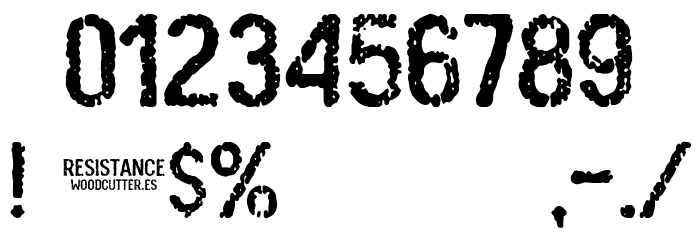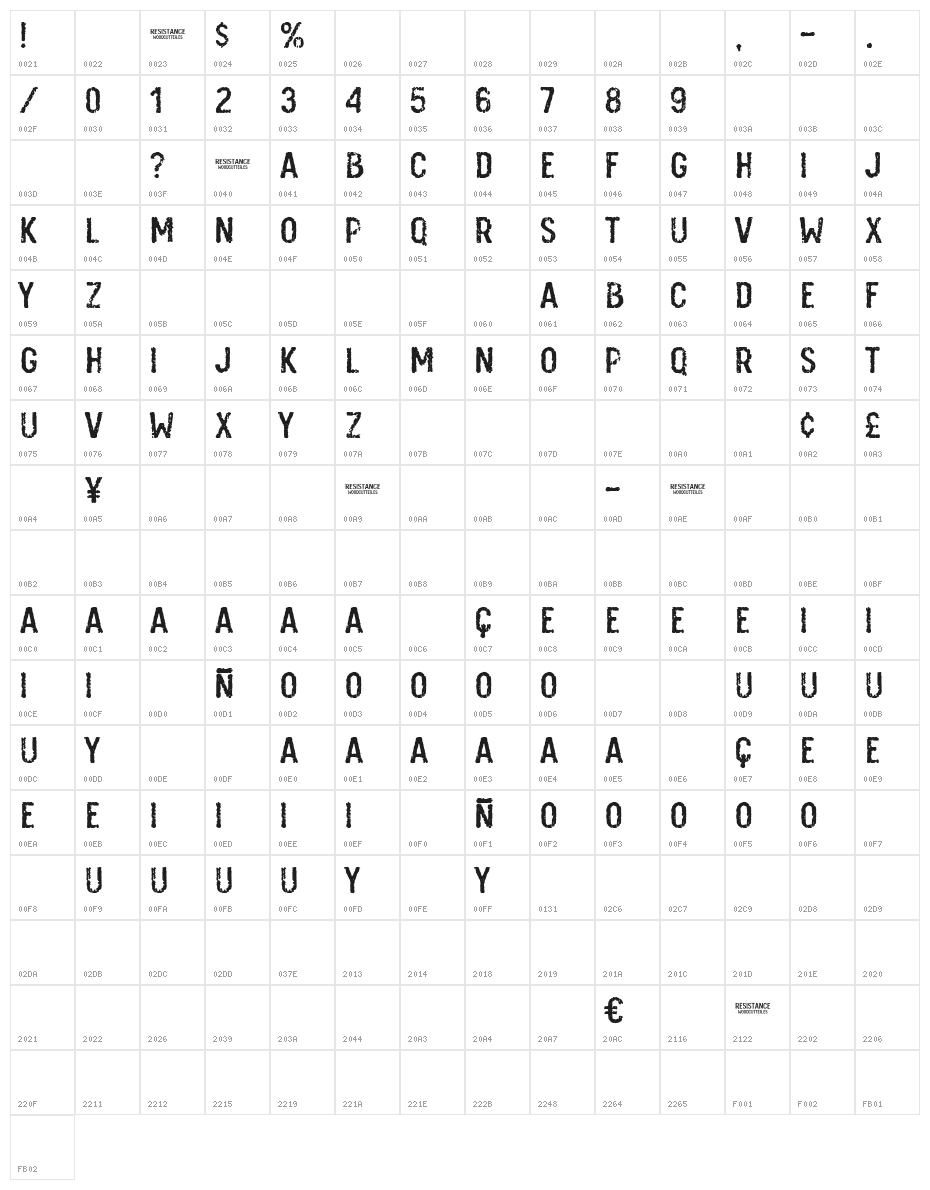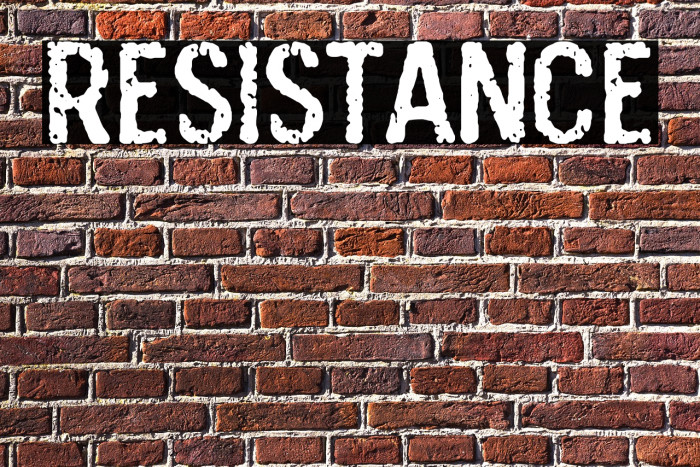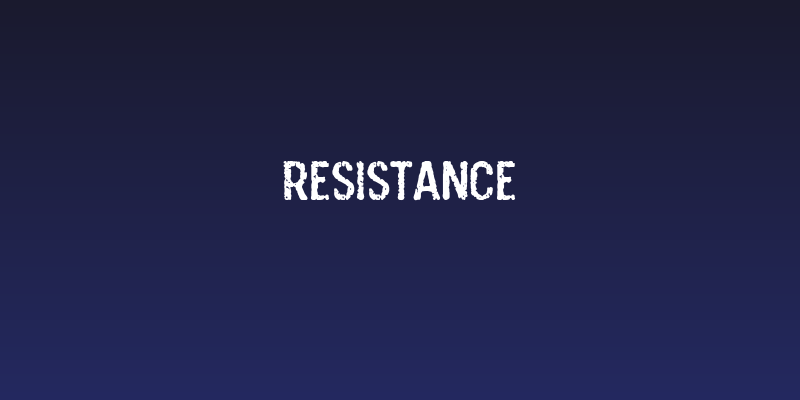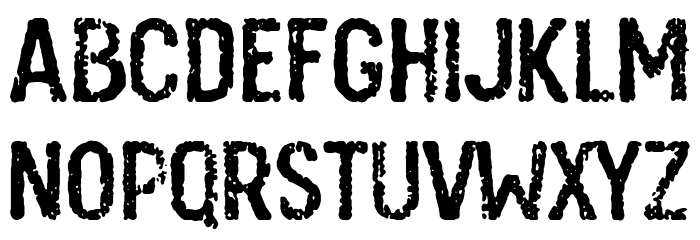
Resistance Font
Resistance Description
This font features a rugged, distressed appearance, reminiscent of weathered or eroded surfaces. The characters are bold and impactful, with a textured finish that gives them a gritty, industrial feel. The uppercase letters are uniform in height, while the numbers and special characters maintain the same distressed style, ensuring consistency across all elements. The font's unique texture adds a sense of depth and character, making it ideal for projects that require a bold, eye-catching design. Its rough edges and uneven strokes convey a sense of strength and resilience, perfect for themes related to toughness or endurance.